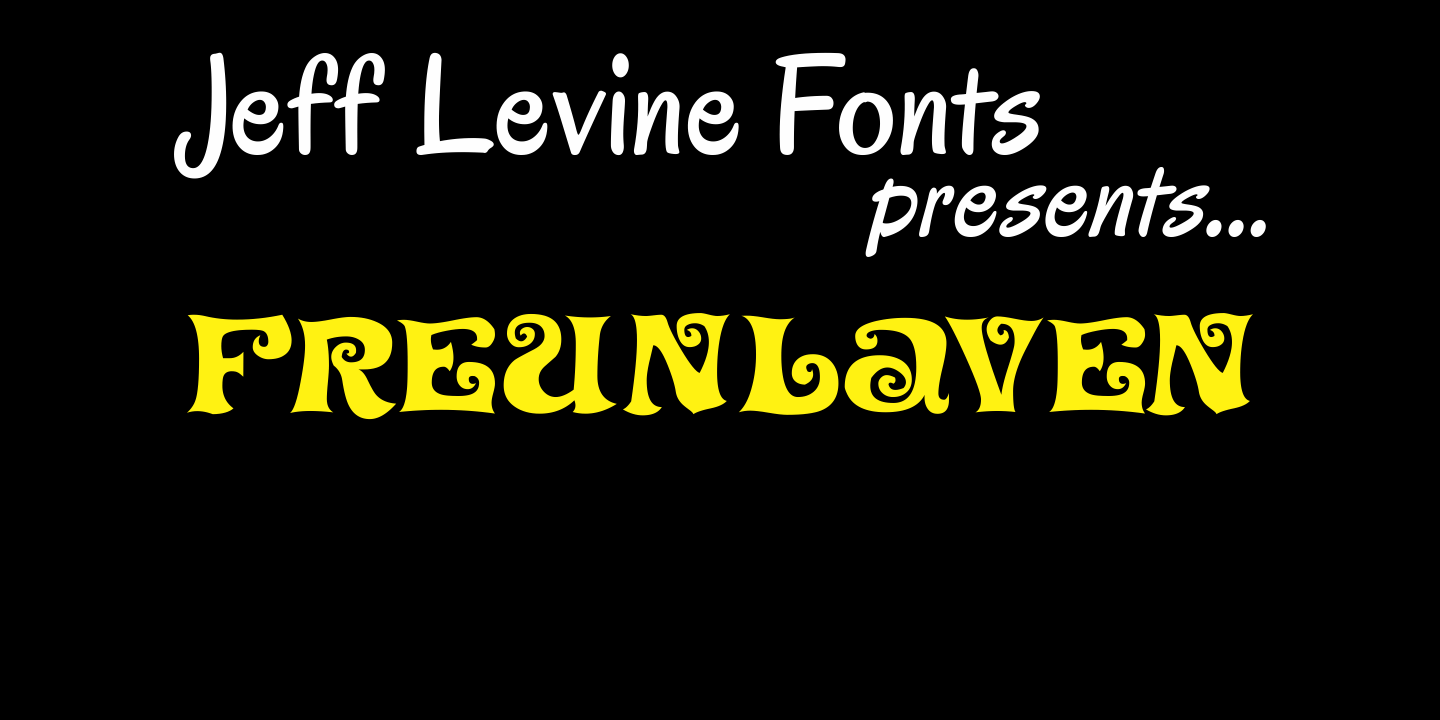
Freunlaven
Freunlaven JNL is a wild and partying font with a name inspired by the nonsense verbage often uttered by Jerry Lewis in his comedy classics.